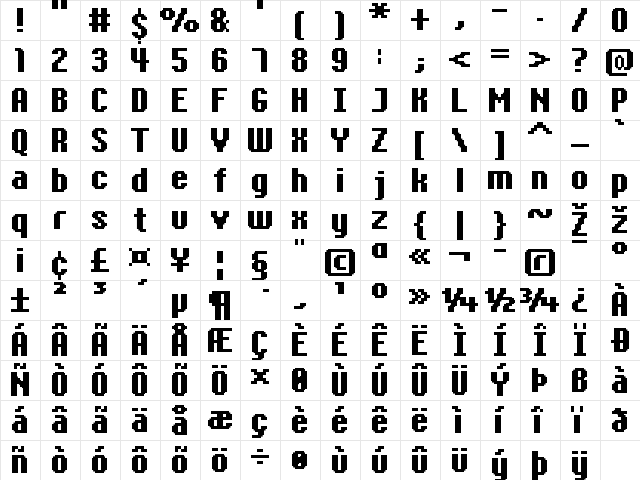
FFF Homepage Bold Extended Regular
| Foundry | Fonts For Flash |
| Designer | Fonts For Flash |
Design Context for FFF Homepage Bold Extended Typeface
FFF Homepage Bold Extended takes a measured approach to typography — its balanced proportions and neutral character make it a reliable workhorse for both digital and print work. Its bold stroke weight gives it real presence on the page.